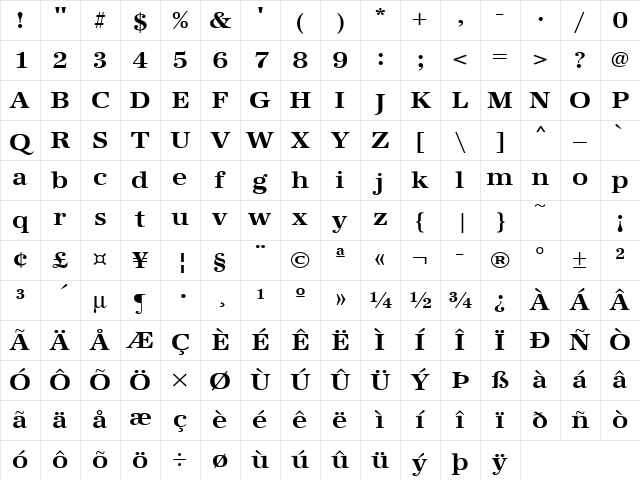
URWAntiquaTExtWid Bold
Complete URWAntiquaTExtWid Bold glyph index. Displaying only characters natively supported by URWAntiquaTExtWid Bold font.
Design Context for URWAntiquaTExtWid
URWAntiquaTExtWid is a composed and adaptable typeface that performs quietly and consistently across a wide range of design contexts. Its bold stroke weight gives it real presence on the page.